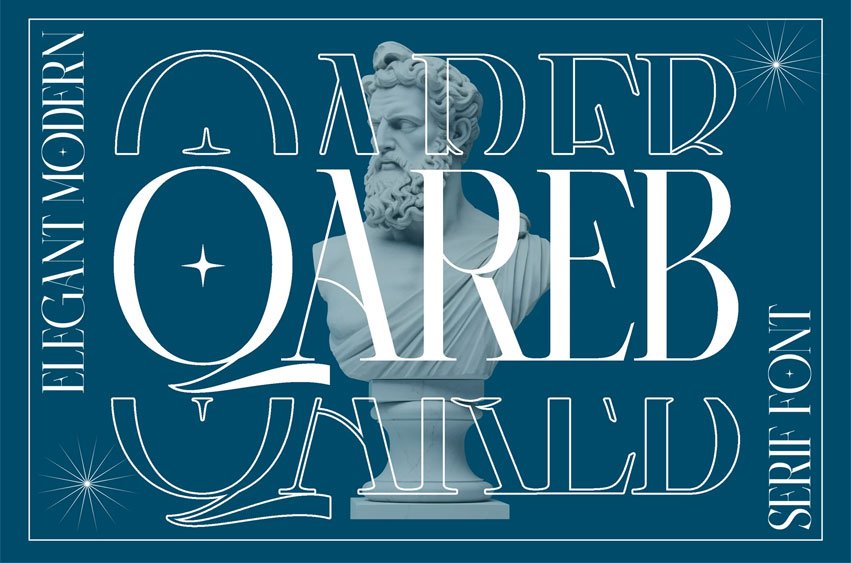
Qareb Serif Font
Qareb Serif Font is a modern serif typeface that blends classical elegance with contemporary details. Featuring fine, delicate strokes, graceful curves, and well-proportioned letterforms, this font is perfect for luxury branding, editorial layouts, packaging design, and creative projects that require a sophisticated and artistic touch. Qareb Serif also includes numerals, punctuation, and special characters, offering maximum flexibility for professional typography use.
Its uppercase letters convey a strong, classical presence, while the lowercase letters are sleek and elegant, achieving the perfect balance between modernity and timeless sophistication.